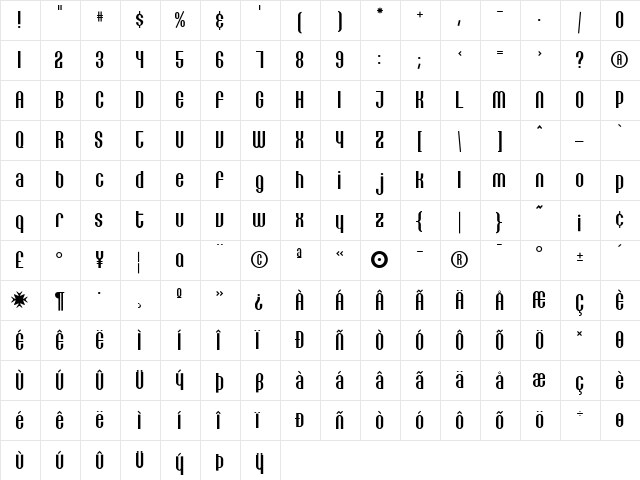
Lithia Regular
Design Context for Lithia Typeface
Lithia offers clean, dependable letterforms without strong stylistic allegiance, making it a practical choice for designers who need flexibility.
Pro Tip: Pair Lithia with a font of contrasting weight or personality to build a more expressive typographic hierarchy.